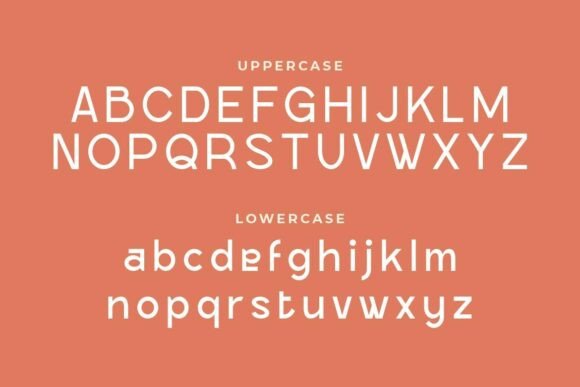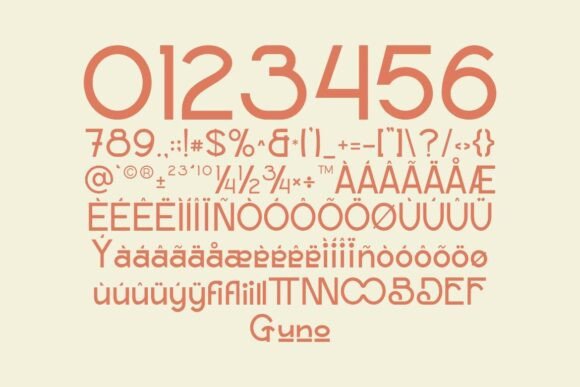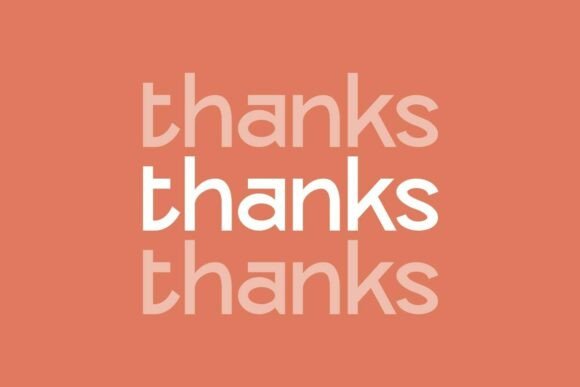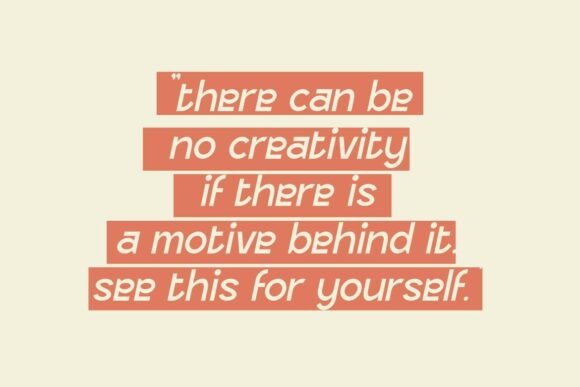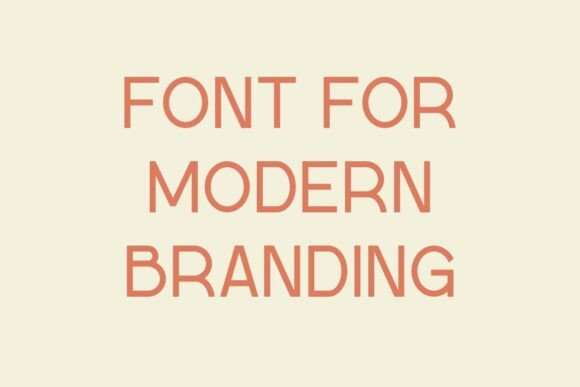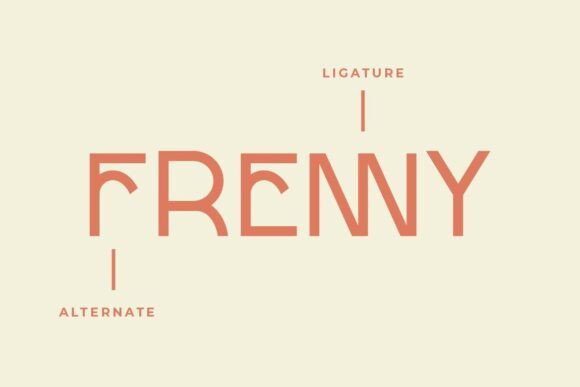
Introduction to Mouda Font
Have you ever found yourself staring at a blank canvas, waiting for that perfect spark to ignite your creative project? For designers, this moment can be both exhilarating and intimidating – the pressure to create something truly unique and captivating can be overwhelming. But what if you had a reliable design resource to fall back on? Enter the Mouda Font, a high-quality sans serif font that’s sure to bring a breath of fresh air to your next creative endeavor.
With its clean structure and subtle quirks, Mouda Font offers a unique blend of professionalism and personality that’s perfect for branding, editorial layouts, logos, and digital design. And the best part? This versatile font is available for free download, complete with a transparent background, making it the perfect addition to any design project.
Key Features of Mouda Font
- Unique, hand-drawn style with transparent background, allowing for flexibility in design.
Honest Review: Mouda Font
I recently stumbled upon the Mouda Font, a high quality design resource that caught my attention. As a designer, I’m always on the lookout for unique and versatile fonts to elevate my creative projects.
- Wide range of styles and weights, perfect for experimenting with different typography combinations.
- Transparent background, making it easy to place over various backgrounds without any issues.
- Well-designed for digital and print projects, including logos, branding materials, and web content.
- Limited language support, which may be a concern for designers working on international projects.
- No extensive documentation or user guide, which may leave some users confused.
Overall, I’m impressed with the Mouda Font’s potential and versatility. However, I hope the creators will address the limitations mentioned above to make it an even more robust design resource. With a bit of fine-tuning, this font has the potential to become a go-to choice for many designers.
Tips for Getting the Most Out of Mouda Font
For the best results, use Mouda Font on a high-quality design resource with a transparent background. This will allow you to layer the font over other design elements without any issues.
Mouda Font is ideal for creative projects that require a unique and eye-catching font. Use it for logos, social media graphics, or any other design that needs a high-quality font with a transparent background.